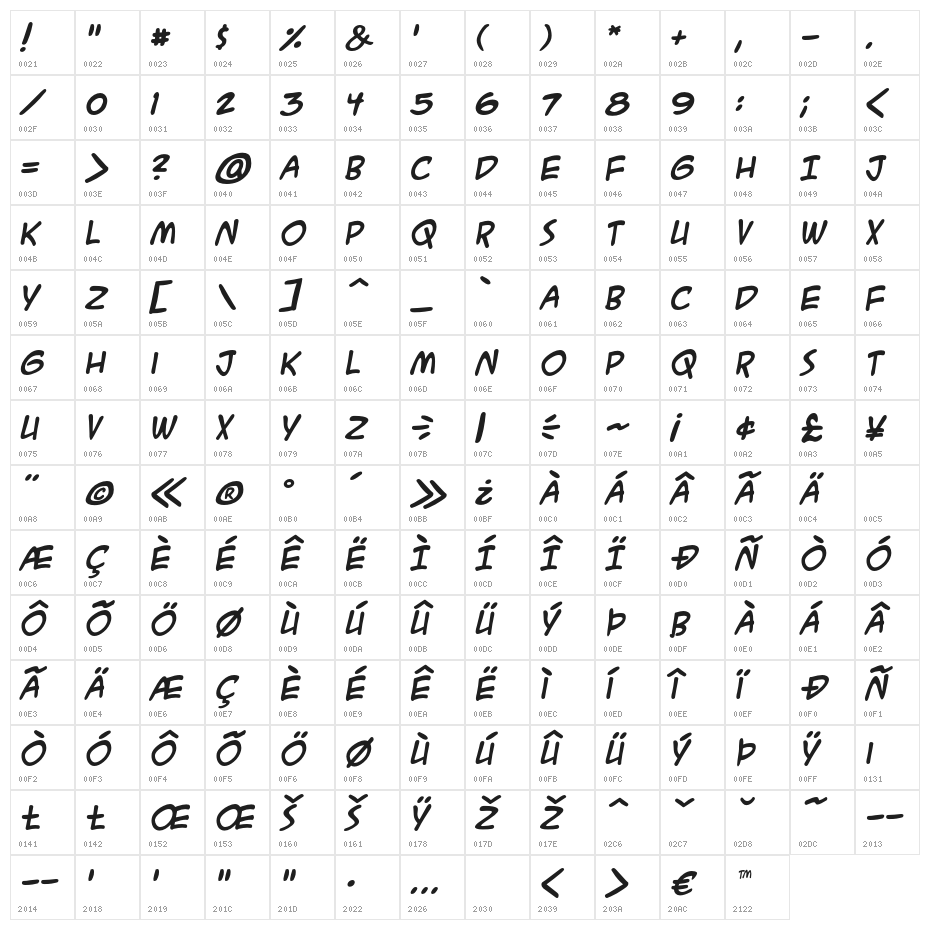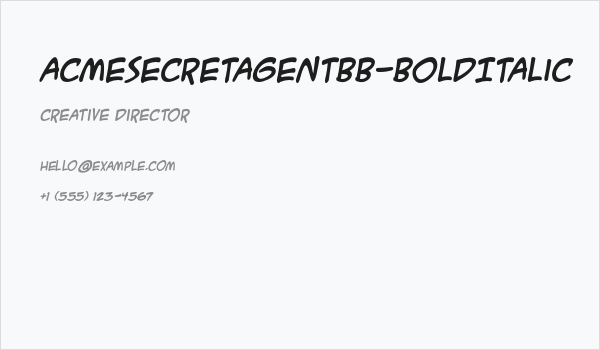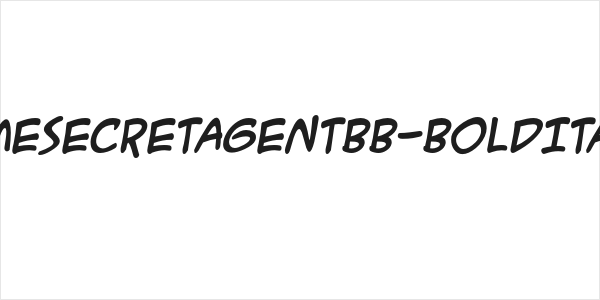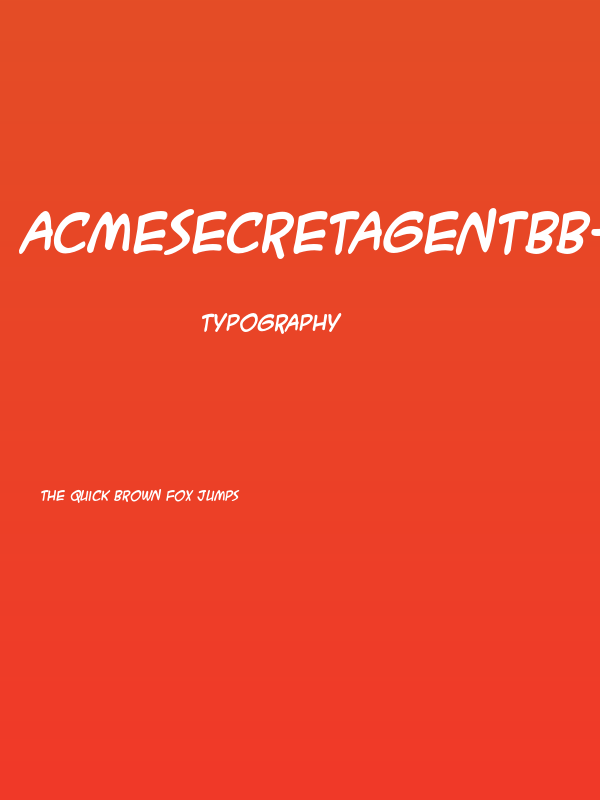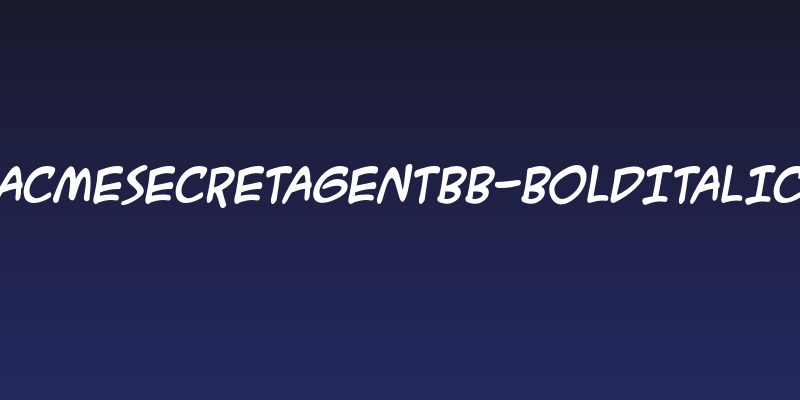
ACMESecretAgentBB-BoldItalic Font
ACMESecretAgentBB-BoldItalic Description
This font features a bold and italic style, characterized by its smooth, flowing curves and slightly slanted letters. The uppercase and lowercase letters maintain a consistent style, with rounded edges and a playful, casual appearance. The numbers and special characters are designed to match the overall aesthetic, providing a cohesive look across all glyphs. The font's boldness and italicization give it a dynamic and energetic feel, making it suitable for projects that require a lively and informal touch.
| Proposed Projects | Ideal for comic books, playful branding, children's books, and informal event invitations. |